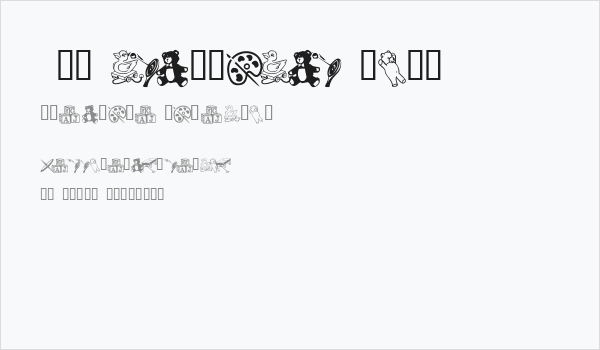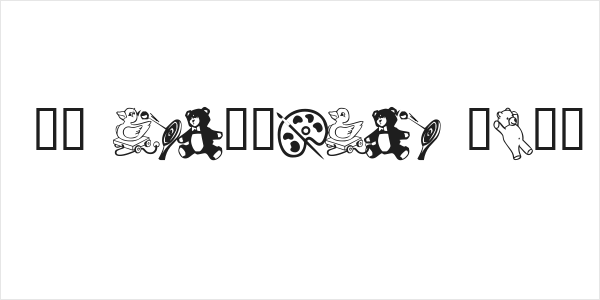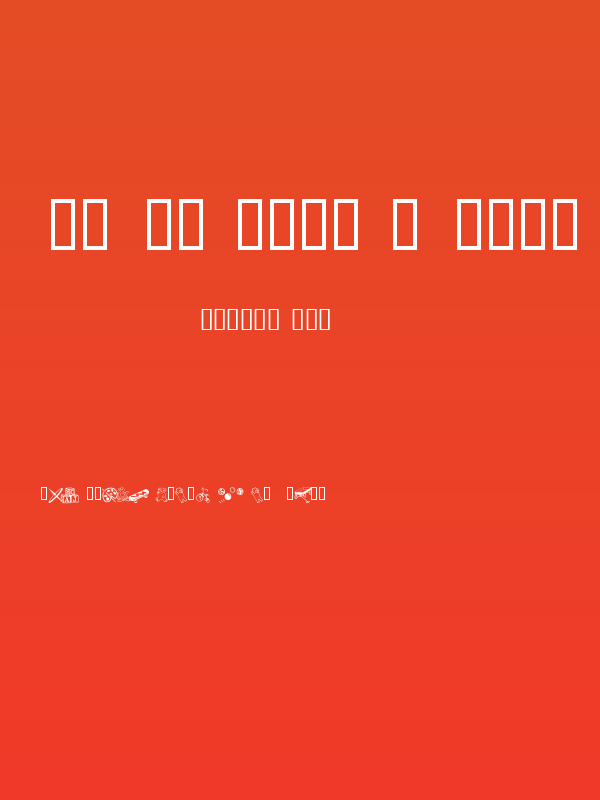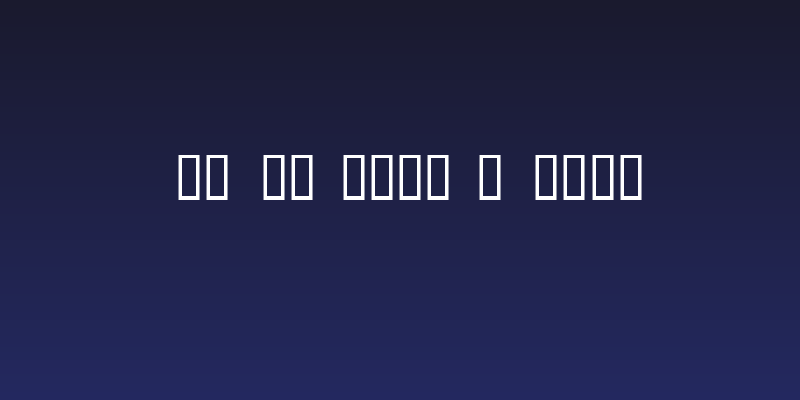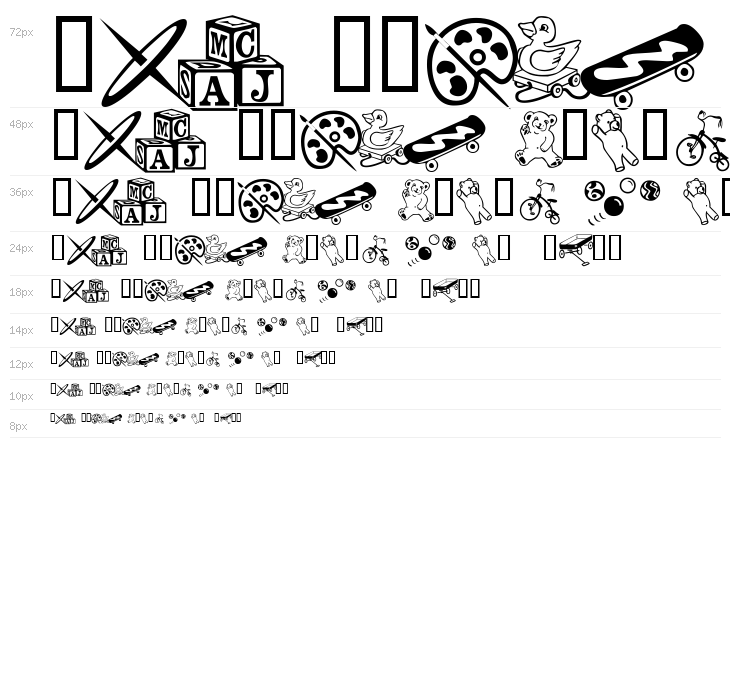
AEZ classical toys Font
AEZ classical toys Description
| Overall Style | Playful, Decorative |
| Use Case | Decorative elements, Themed graphics, Logos for children's products |
| Proposed Projects | Children's party invitations, toy store branding, educational materials, playful posters, scrapbooking. |